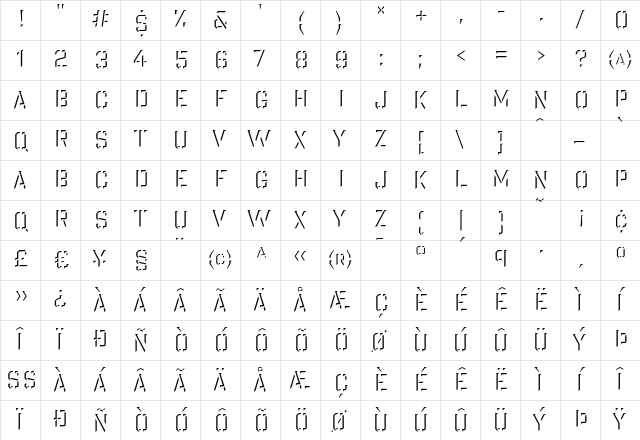
GiantLayers Regular Font Preview
GiantLayers Regular
GiantLayers Regular Font Details
| Foundry | C) - Hoefler & Frere-Jones Typography, Inc |
Design Context for GiantLayers Typeface
GiantLayers is a composed and adaptable typeface that performs quietly and consistently across a wide range of design contexts.
Pro Tip: Use GiantLayers in both headline and body roles to test its range before committing to a single application.